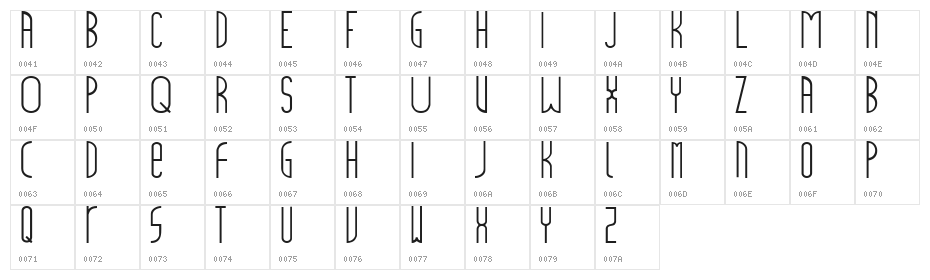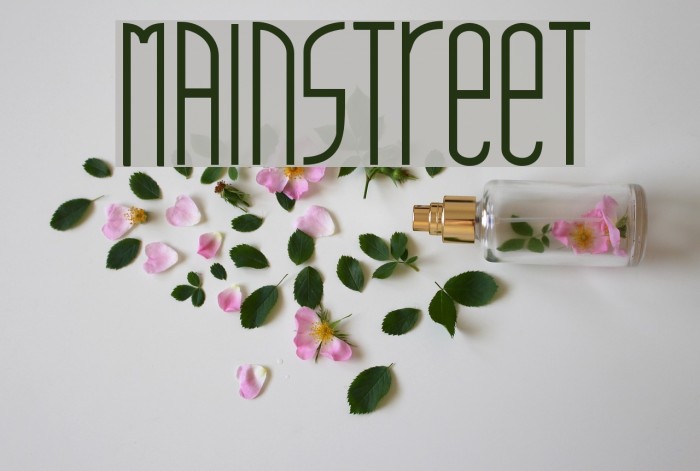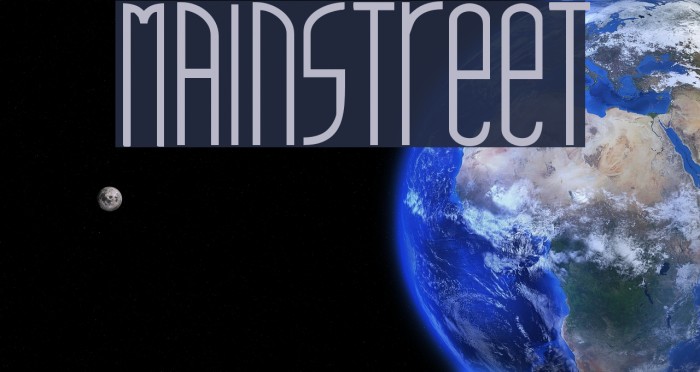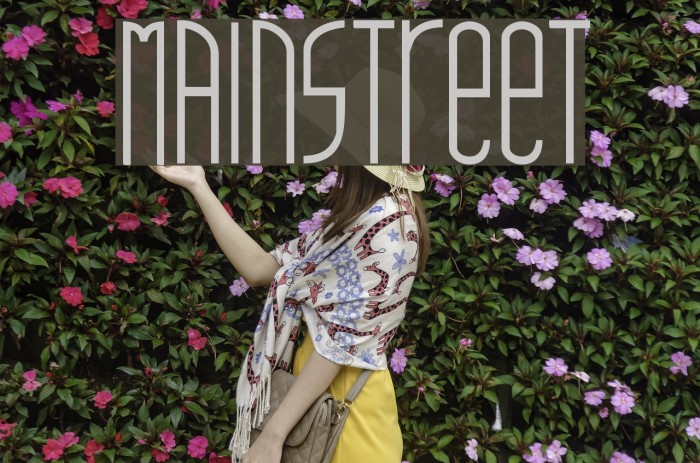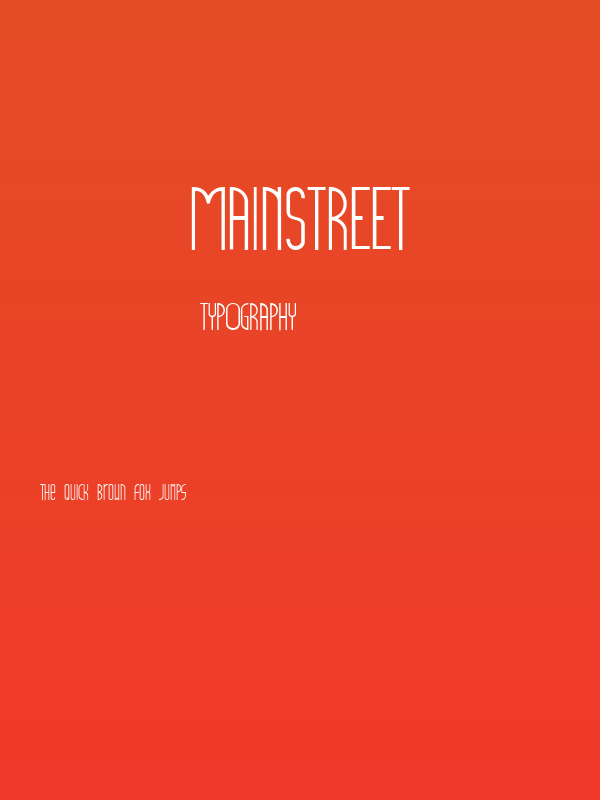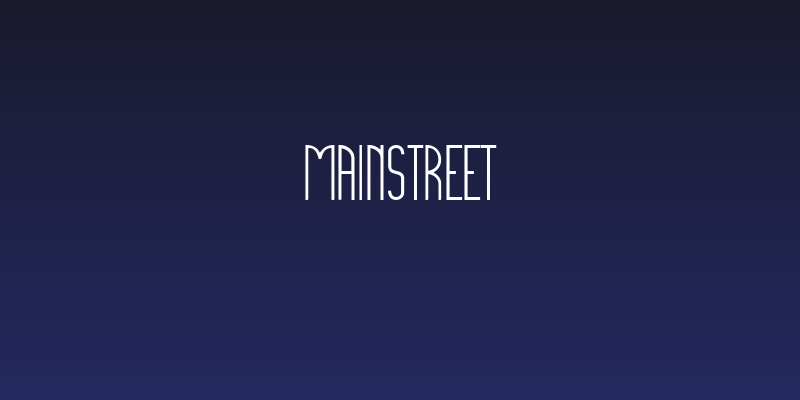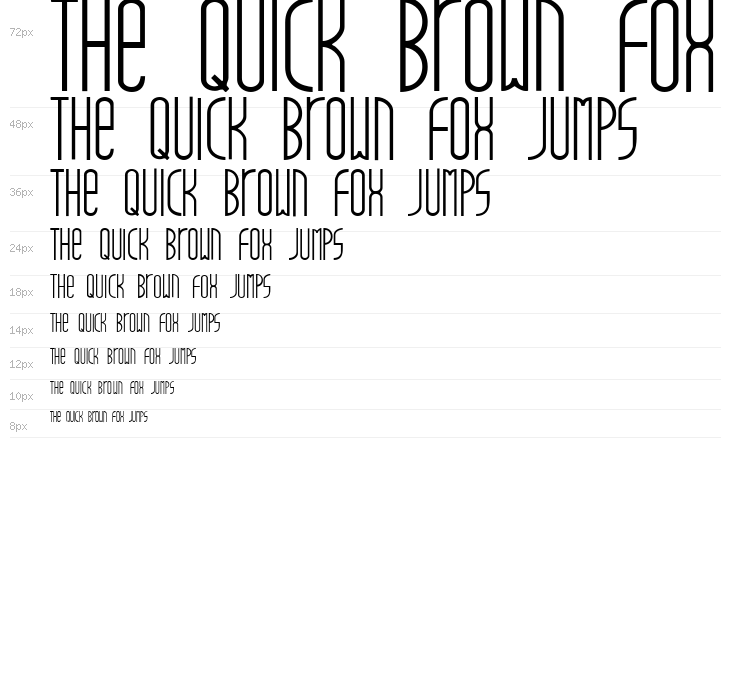
mainstreet Font
mainstreet Description
This font features a unique and modern design with tall, narrow characters that have a distinct geometric style. The uppercase letters are elongated with consistent vertical strokes, giving them a sleek and sophisticated appearance. The lowercase letters maintain the same narrow structure, creating a cohesive look across the alphabet. The numerals and special characters are designed to match the overall aesthetic, with clean lines and minimal embellishments. This font's distinctive style makes it stand out, offering a contemporary and artistic feel.
| Proposed Projects | Ideal for branding, posters, and editorial design where a modern and artistic touch is desired. |